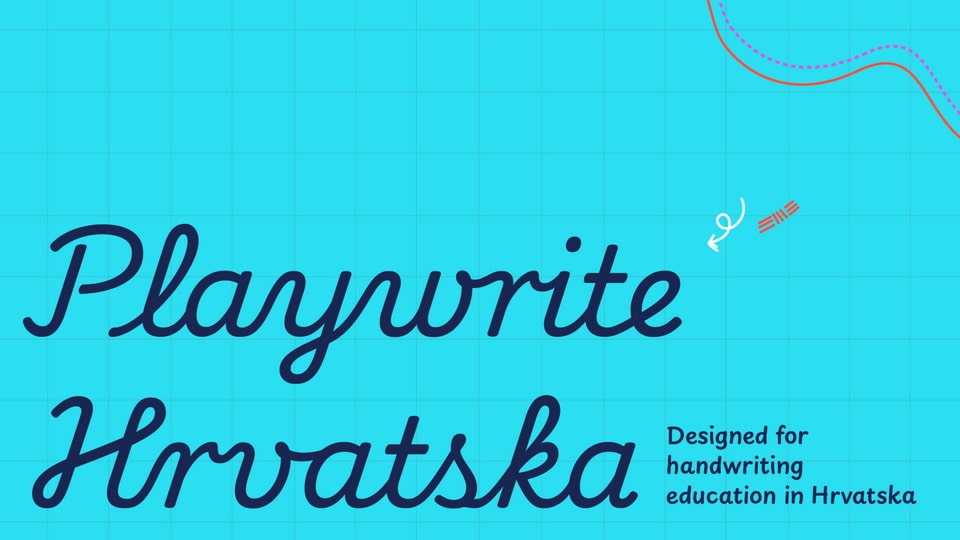
Download Playwrite Hrvatska font, a typeface that allows the creation of primary school cursive fonts. It featured by a slanted continuous cursive handwriting model with short looped ascenders and descenders.
Designer: TypeTogether